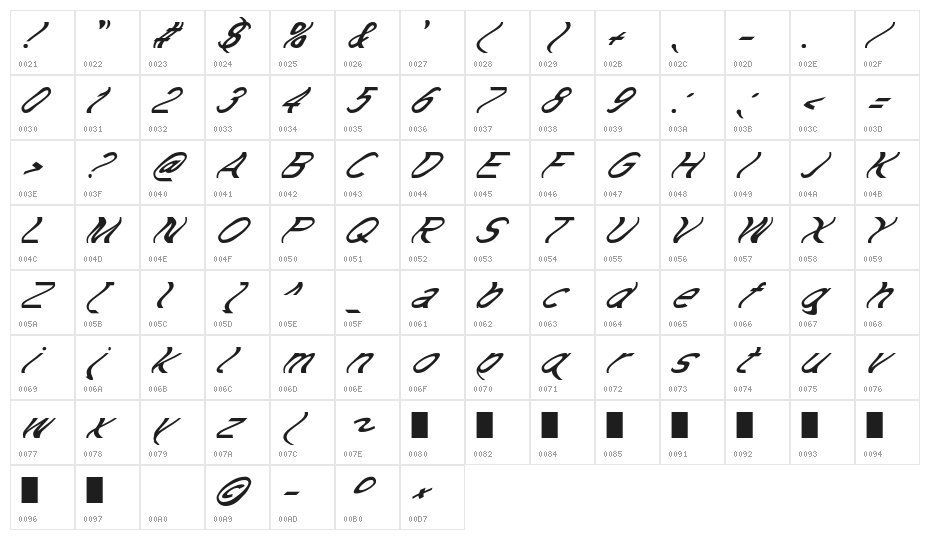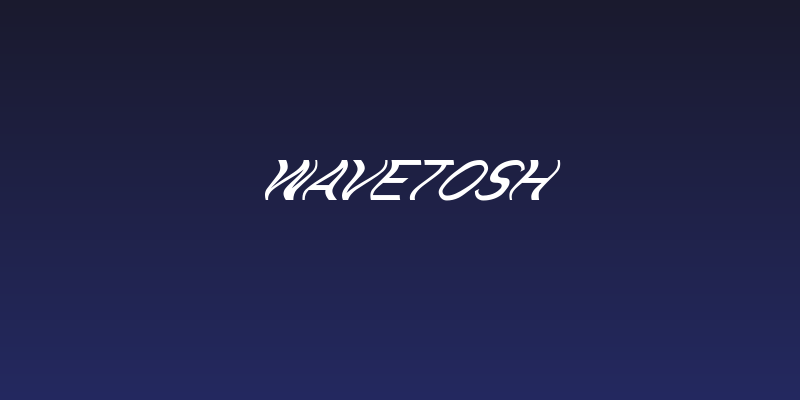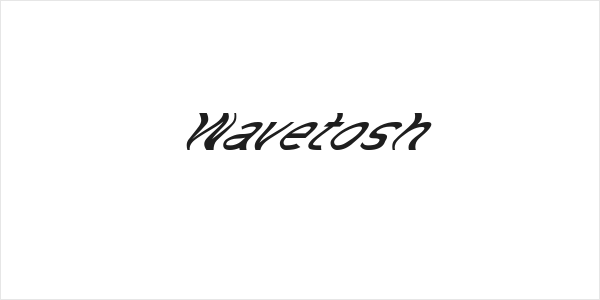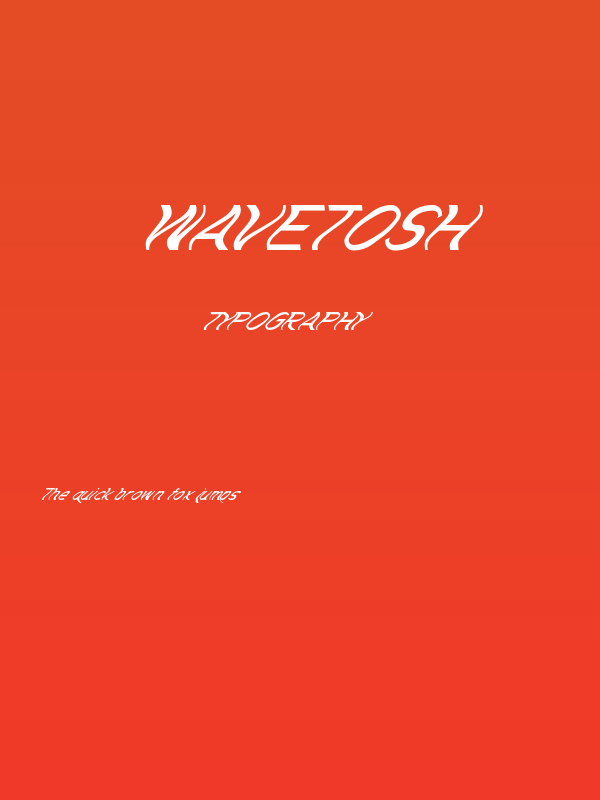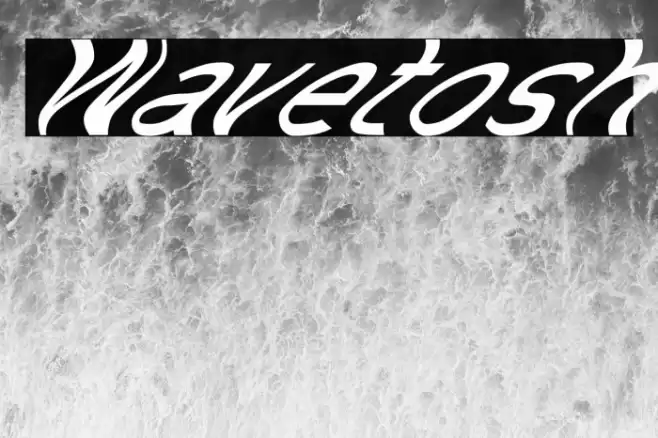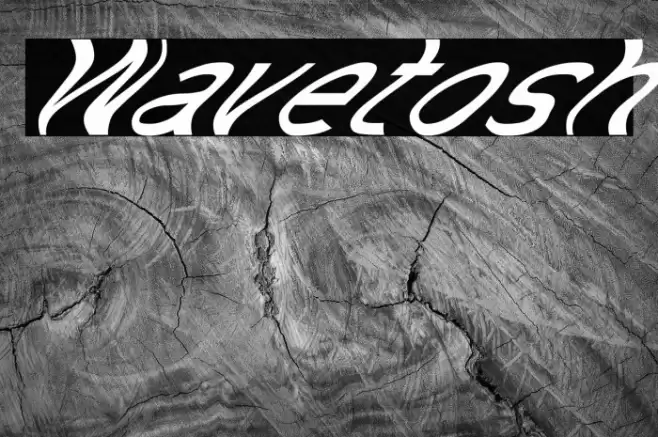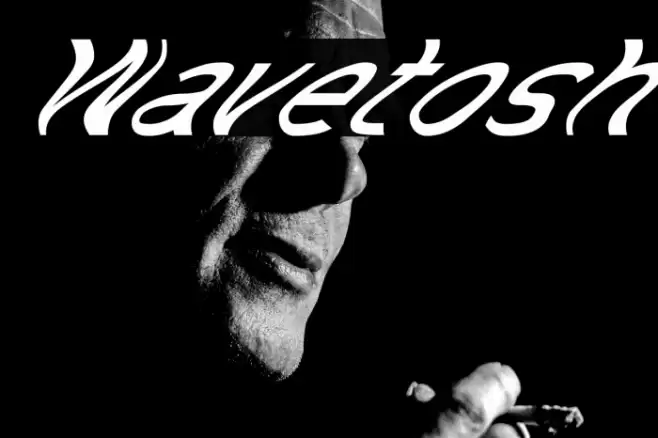
Wavetosh Font
Wavetosh Description
This font features a dynamic and energetic style with a strong slant, giving it a sense of motion and fluidity. The characters are bold and slightly condensed, with a consistent stroke width that maintains readability while adding a touch of elegance. The uppercase letters are particularly striking, with sharp angles and smooth curves that create a harmonious balance. The lowercase letters complement this with a more rounded and flowing appearance. The numerals are clear and distinct, matching the overall style of the alphabet. Special characters are well-integrated, maintaining the font's cohesive look.
| Proposed Projects | Ideal for branding, logos, and headlines where a sense of movement and style is desired. |